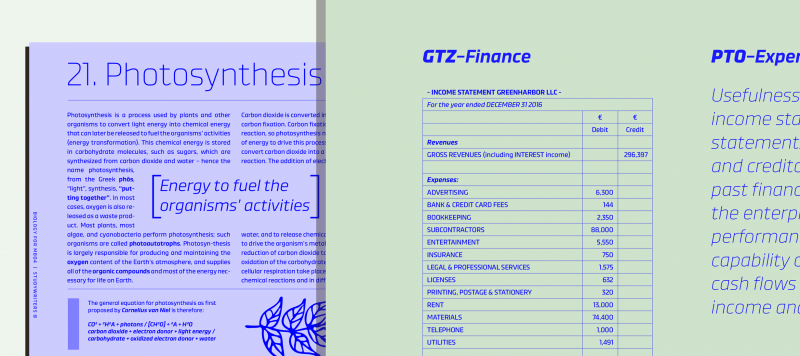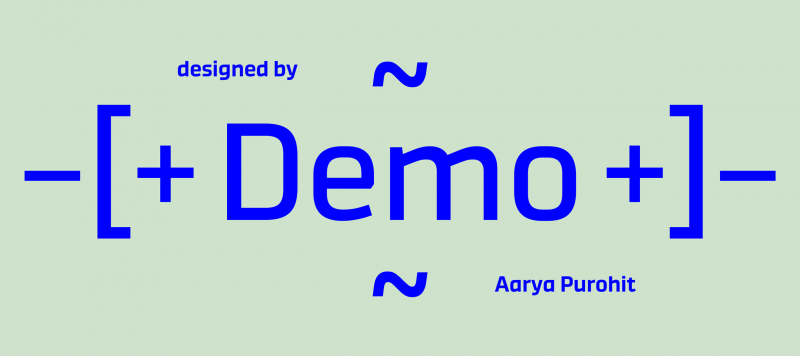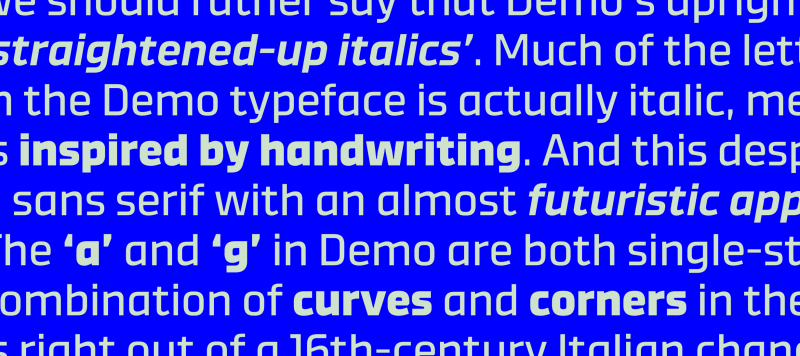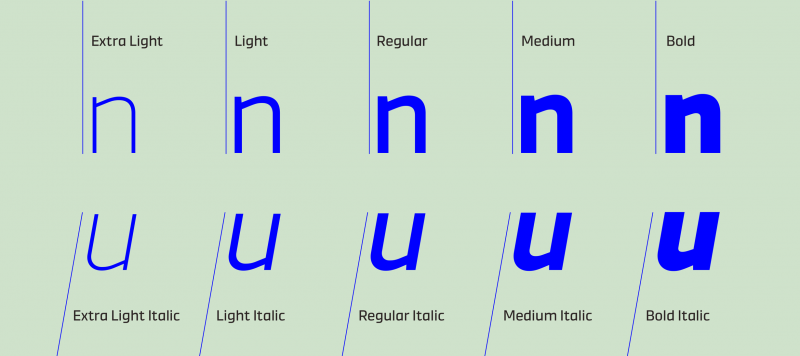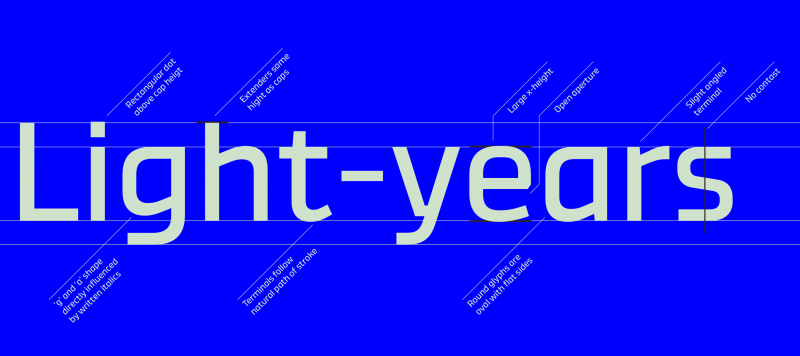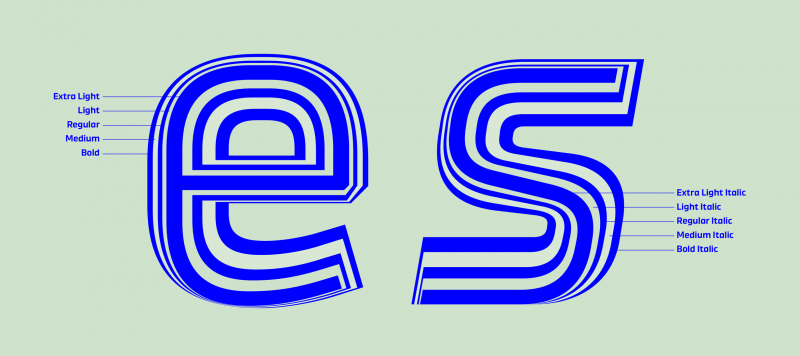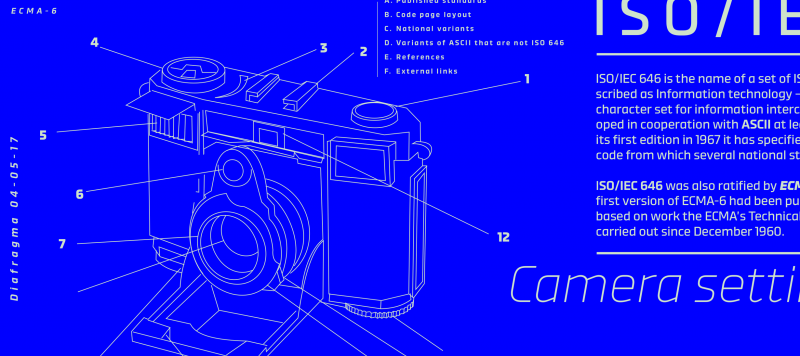
Demo is a flat-sided, technoid-style sans serif family. It has ten fonts on offer; that’s five different weights, each with a companion italic. The italics are really obliques, differentiating themselves from texts set with the upright fonts by their slant. However, rather than calling the italic fonts ‘slanted’ versions of Demo’s upright fonts, we should rather say that Demo’s upright fonts are ‘straightened-up italics’. Much of the letter construction in the Demo typeface is actually italic, meaning that it is inspired by handwriting. And this despite its being a sans serif with an almost futuristic appearance. The ‘a’ and ‘g’ in Demo are both single-storey, but the combination of curves and corners in these two letters is right out of a 16th-century Italian chancery. The other notable feature of Demo is the strong mono-linearity present in all ten of the fonts. Demo’s letters do not include any visible stroke contrast: Demo’s lowercase has a very tall x-height, and the capital letters are compact (the lowercase’s ascender strokes rise above the caps somewhat). Demo does not need to be restricted to use in display sizes only; its lighter weights may be used to set shorter passages of body copy, too.
Family Name Demo
Classification Sans